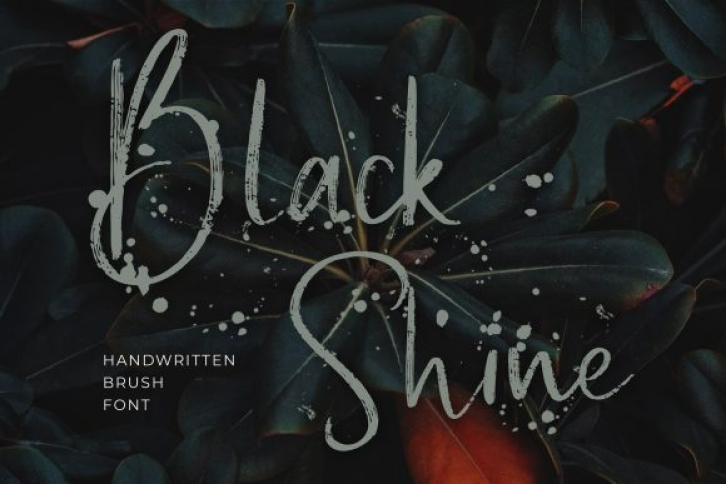
Black Shine is a flowing brushed calligraphy typeface with characters that dance along the baseline. It has a casual, yet elegant touch. It can be used for various purposes such as logos, wedding invitations, headings, t-shirts, letterhead, signage, labels, news, posters, badges and so much more.